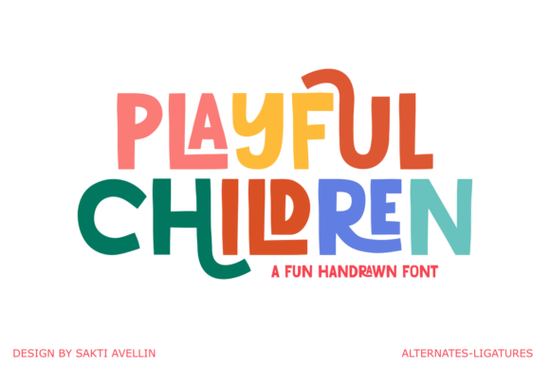
If you’re looking for a typeface that captures the energy and imagination of childhood without losing a professional finish, Playful Children is a solid pick. This handcrafted font blends organic shapes with a distinct artistic touch, making it versatile enough for both kids’ products and playful branding for grown-up audiences. Below, I’ll walk you through how to use it, where it fits best, and what makes it stand out from other display fonts.
Where can you use Playful Children font effectively?
Because of its hand-drawn, lively feel, this font works for both digital and physical projects. You’ll often see it on:
- Branding for kindergartens, daycares, toy stores, or baby clothing lines
- Educational materials like worksheets, posters, or classroom labels
- Packaging for snack wrappers, milk cartons, or birthday party supplies
- Merchandise such as t-shirts, coffee mugs, and wall decals for children’s rooms
- Greeting cards, key chains, and small accessories for gifts
The charm of Playful Children lies in its ability to turn ordinary items into something that feels joyful and approachable. For instance, a simple notebook cover becomes a lot more inviting with this font on the front.
Why choose this font over other playful typefaces?
Not every playful font keeps its readability at small sizes. Playful Children manages to stay legible while keeping that handcrafted, imperfect look that kids (and adults) find endearing. It’s also well-suited for product titles or short headlines rather than long body text, so it pairs nicely with a simple sans-serif or slab serif for longer copy.
Will it work for print-on-demand products?
Absolutely. Many print-on-demand sellers use Playful Children for designs aimed at children’s apparel, nursery decor, or party accessories. Because the font handles well on both light and dark backgrounds (especially when used in a lighter weight or with a thin outline), you can apply it to mugs, phone cases, or tote bags without losing clarity. Just make sure to test kerning for specific words handcrafted fonts sometimes need minor spacing adjustments.
Is it suitable for logos and branding?
Yes, especially for businesses with a cheerful, friendly identity. The font’s uneven strokes and playful curves give logos a unique, non-corporate look. For a daycare or a children’s activity center, it immediately communicates a warm, safe environment. If you’re designing a brand book, you can combine Playful Children with a more structured font for headings, like Varsity Narrow Font, to create contrast while keeping a cohesive style.
What about educational materials?
Teachers and homeschooling parents often look for fonts that appeal to kids while still being easy to read. Playful Children works well for flashcards, behavior charts, and mini-lesson titles. The rounded letters don’t feel intimidating, so children are more likely to engage with the content. For a duo that includes both playful and elegant options, check out Selina Daniel Duo Font, which offers a complementary script.
Can it be used for digital designs?
Yes, but keep in mind it’s best for display purposes. Websites, social media posts, or digital invitations aimed at a younger audience benefit from this font’s lively personality. Use it for headers or call-to-action buttons rather than long paragraphs. For a more refined but still playful digital option, Bloomsy Font adds a floral element that works well in spring or garden-themed graphics.
Practical checklist before you use Playful Children
- Test spacing: Adjust letter spacing especially for words with repeating characters.
- Pair with a simple font: Use a clean sans-serif (like Open Sans or Montserrat) for body text.
- Preview on different backgrounds: Light and dark settings can change the font’s visual weight.
- Export as vector or high-res PNG: For print, avoid low-resolution raster files.
If you’d like to see more examples of Playful Children in action, browse Creative Fabrica’s gallery for project inspirations. Whether you’re creating a birthday card, a logo for a small business, or gift tags for a baby shower, this font adds a handcrafted, honest warmth that connects with people.
Start with one project maybe a simple greeting card or a t-shirt design and see how the font changes the overall feel. Often, that small test gives you the confidence to use it across an entire product line.